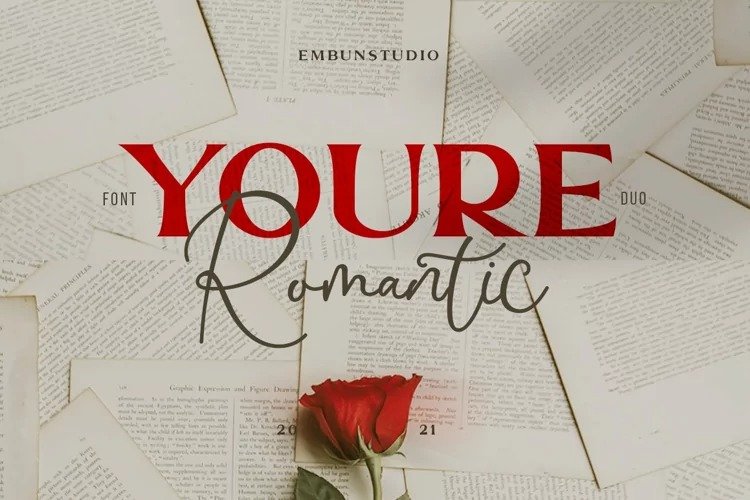
Youre Romantic Font Duo
Youre Romantic is a special bundle with newest script and serif fonts! Youre Romantic is a combination of sans serif fonts and signature styles complemented by beautiful ornaments, Serona with Modern Elegant Style is perfect for branding, logos, invitations, Magazine and more.